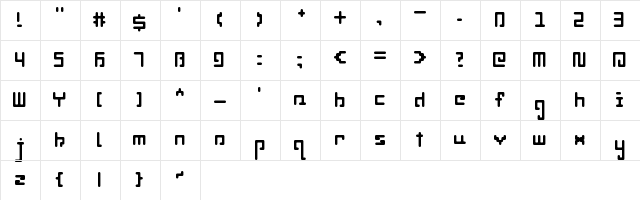
Printable Regular
| Designer | XenoCow |
Design Context for Printable Typeface
Printable takes a measured approach to typography — its balanced proportions and neutral character make it a reliable workhorse for both digital and print work.